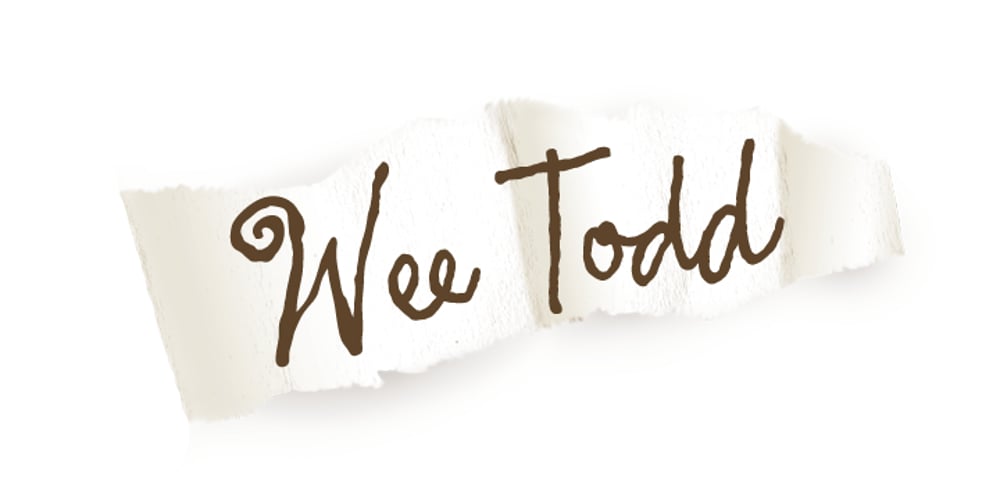
Wee Todd Font Family was designed by Ronna Penner and published by Typadelic. Wee Todd contains 1 styles and family package options. Wee Todd is a well-connected script font in the rough style of a lefty. Several of my closest friends are lefties and I, over the years, have carefully observed their writing style. For the most part they have unique, interesting handwriting and Wee Todd is a reflection of that style. Notice how Wee Todd’s characters connect. I’ve designed additional ligatures and characters into the typeface so that characters are substituted as you type (in OpenType savvy applications), giving the appearance of natural, spontaneous handwriting. Try it and see!